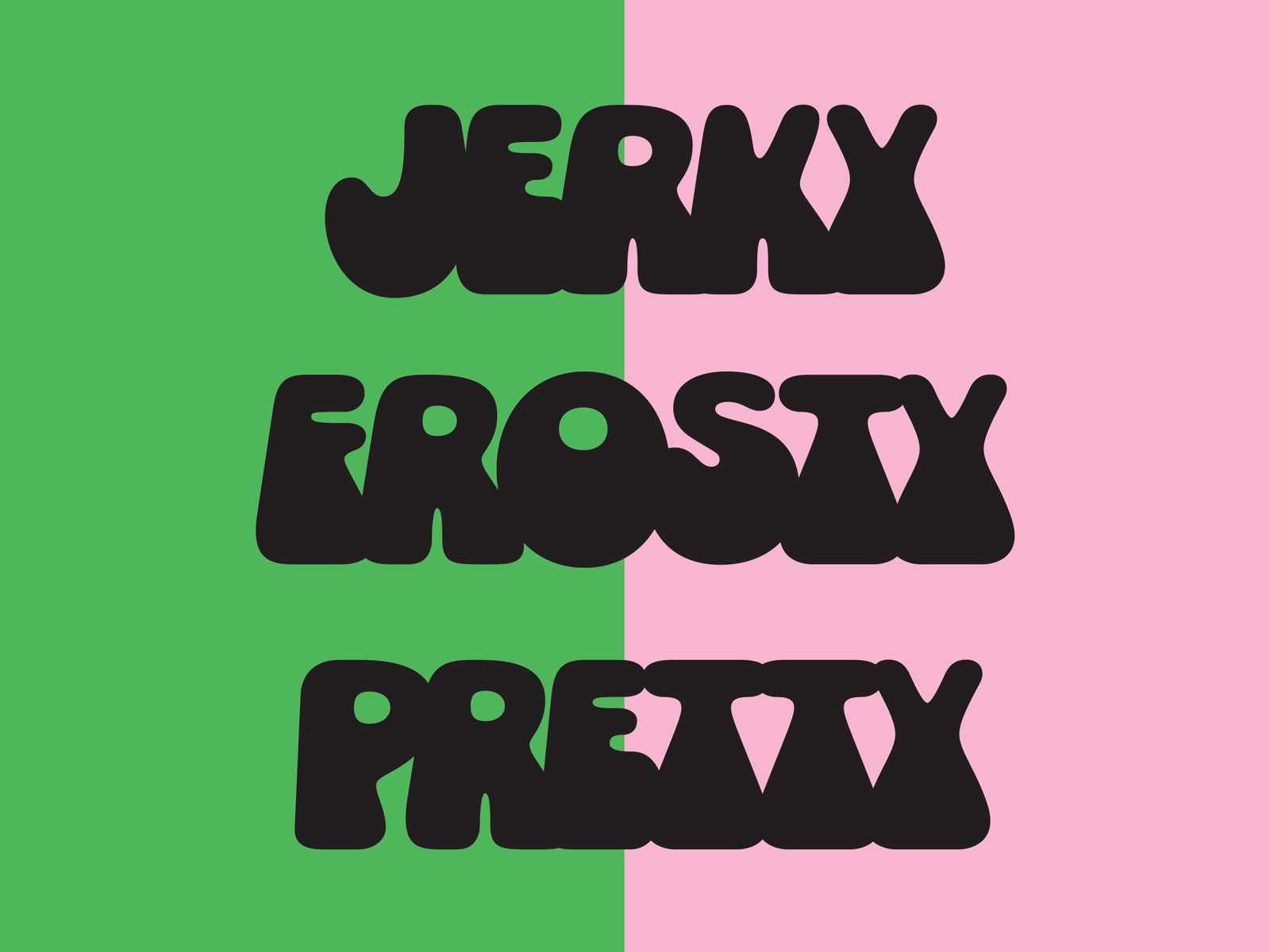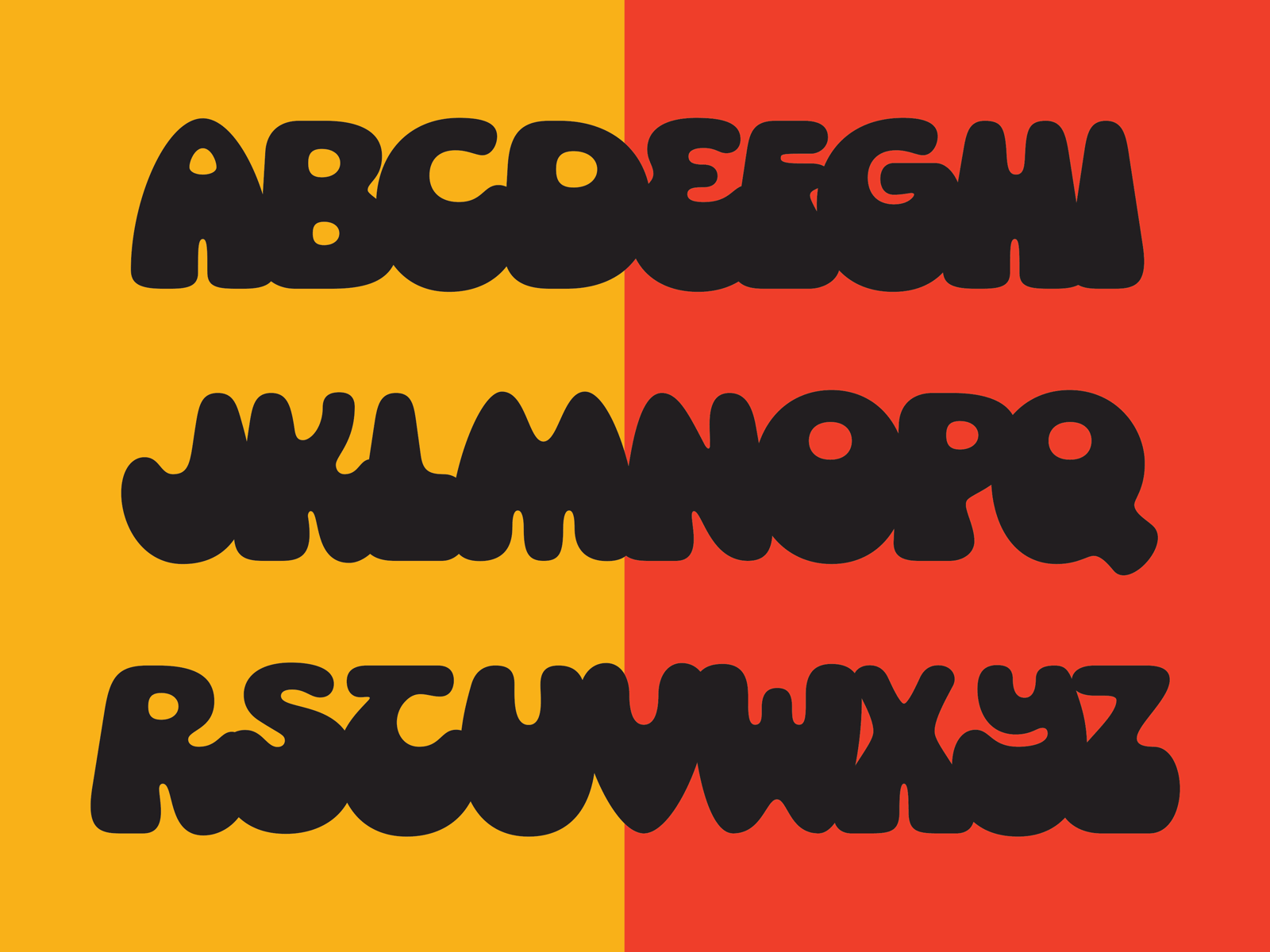
Welcome to the 10th installment of my email updates! I hope none of you noticed that I skipped the last one. There was a lot of personal chaos on my end and I couldn’t get myself to write an email. Don’t hate my guts! </3
I’m back on my Socko shit. It’s the one thats stuck in my head so it’s the one that gets worked on. Like I said in my previous update, I am struggling with a few letters. Most notably, the F. For now, I have resigned myself to the most boring version. A couple pals recommended doing a lowercase form that leans back a bit (similar to Cooper Black). But using a lowercase F breaks up the flow and heaviness of the other letters. It also bugs me to use a couple lowercase forms in a caps font. It feels a little inconsistent, ya know?
My big picture solution is to have two sets of caps — one decorative and one boring. The decorative style will utilize some lowercase/unicase forms in the spirit of the original Socko. The boring style will hopefully be more functional in most scenarios.
Is it the perfect solution? No clue! But I think it will increase the functionality of the overall project. This way the caps can be cherry picked for specific needs. And then I can try some funkier F’s. Next up for Socko is diacritics and there might even be an Italic version!